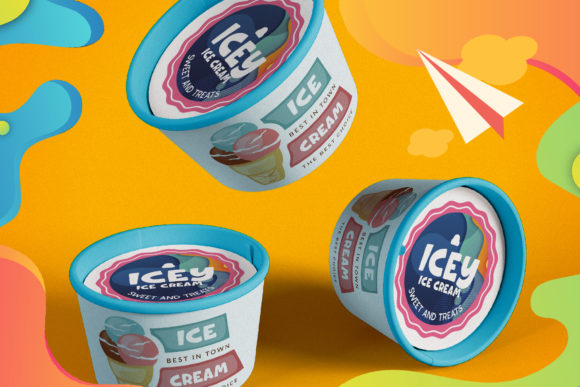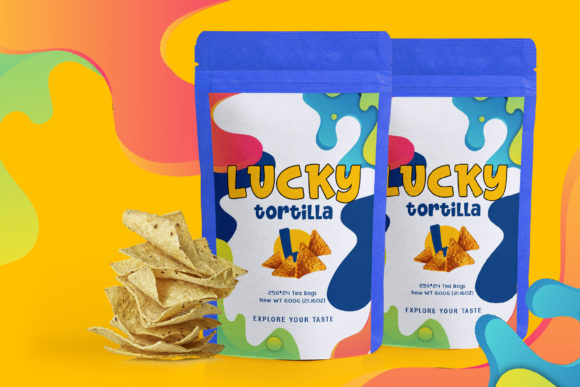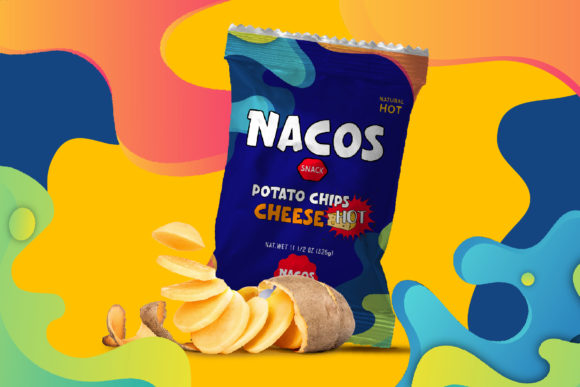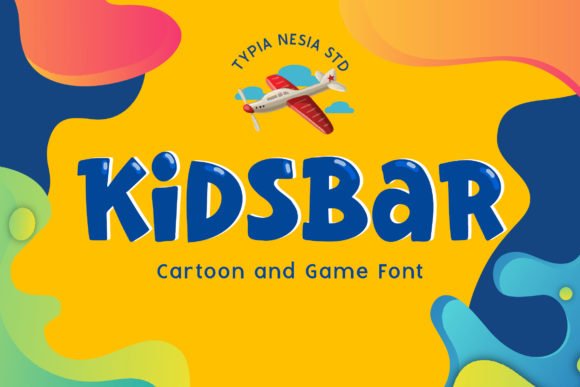
Introduction to Kidsbar Font
Kidsbar is a fun display font.
Get creative with its childlike playfulness, and use it to brighten up any kids and school project .
Why Choose Kidsbar Font?